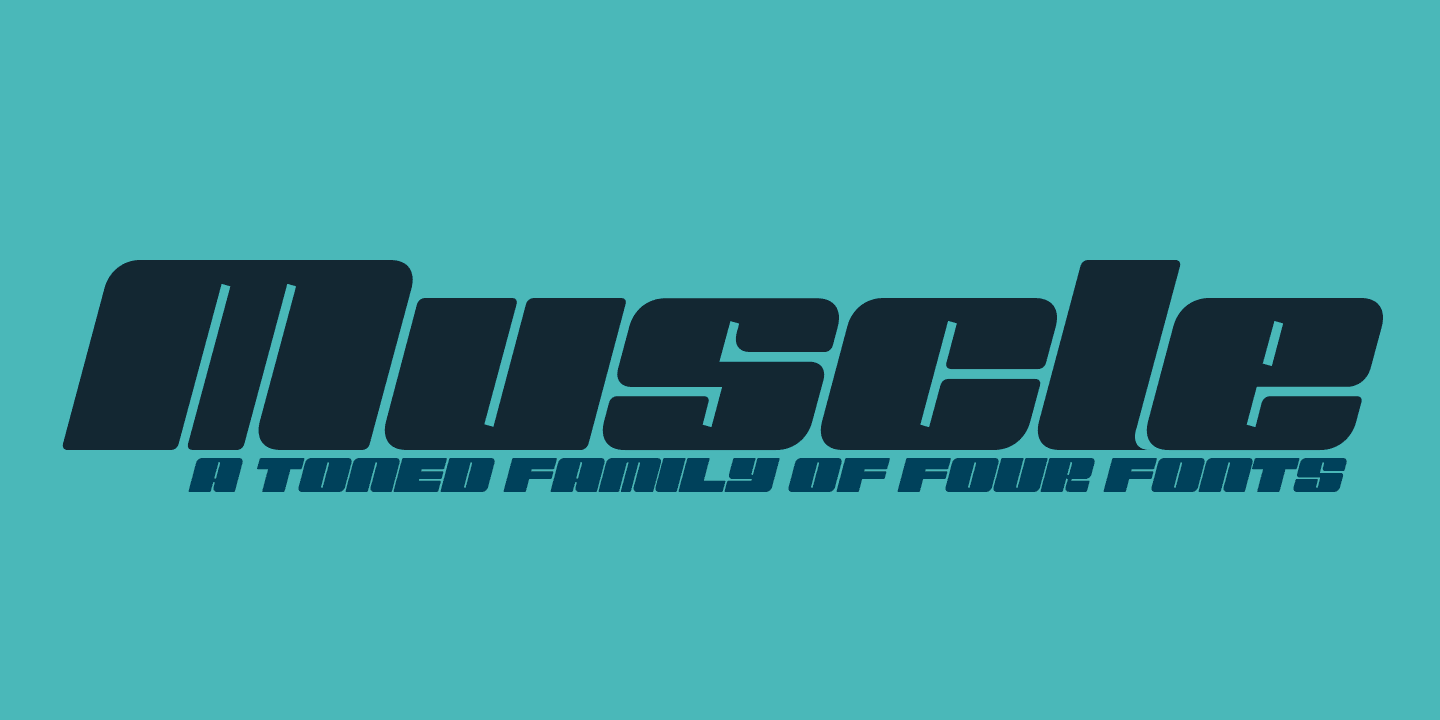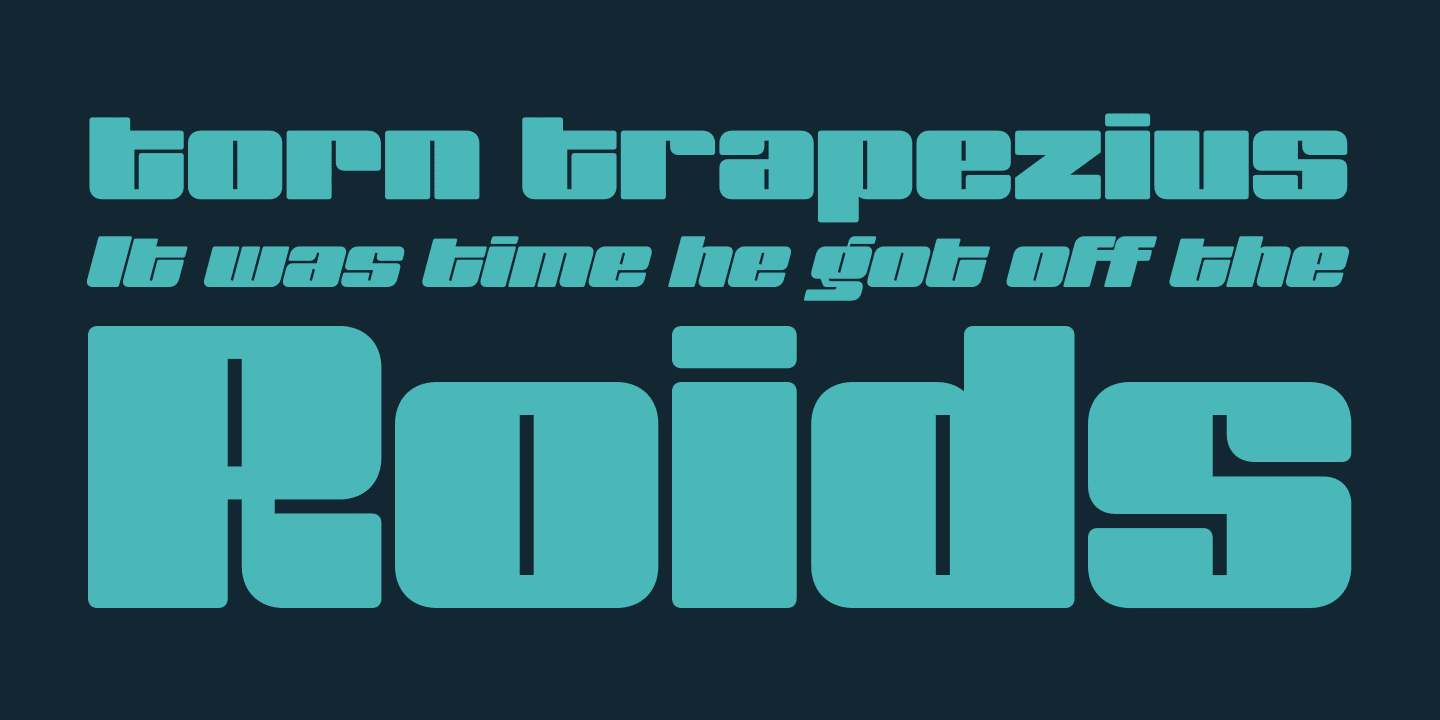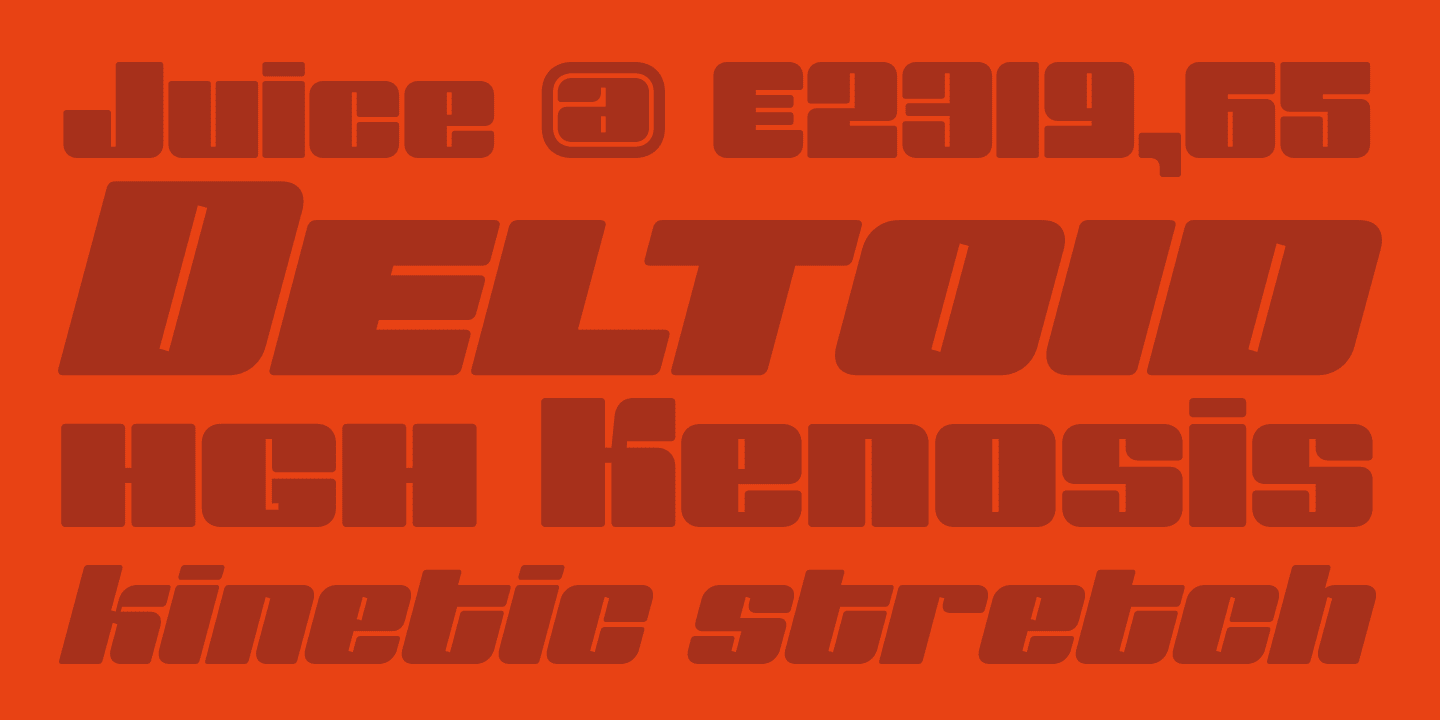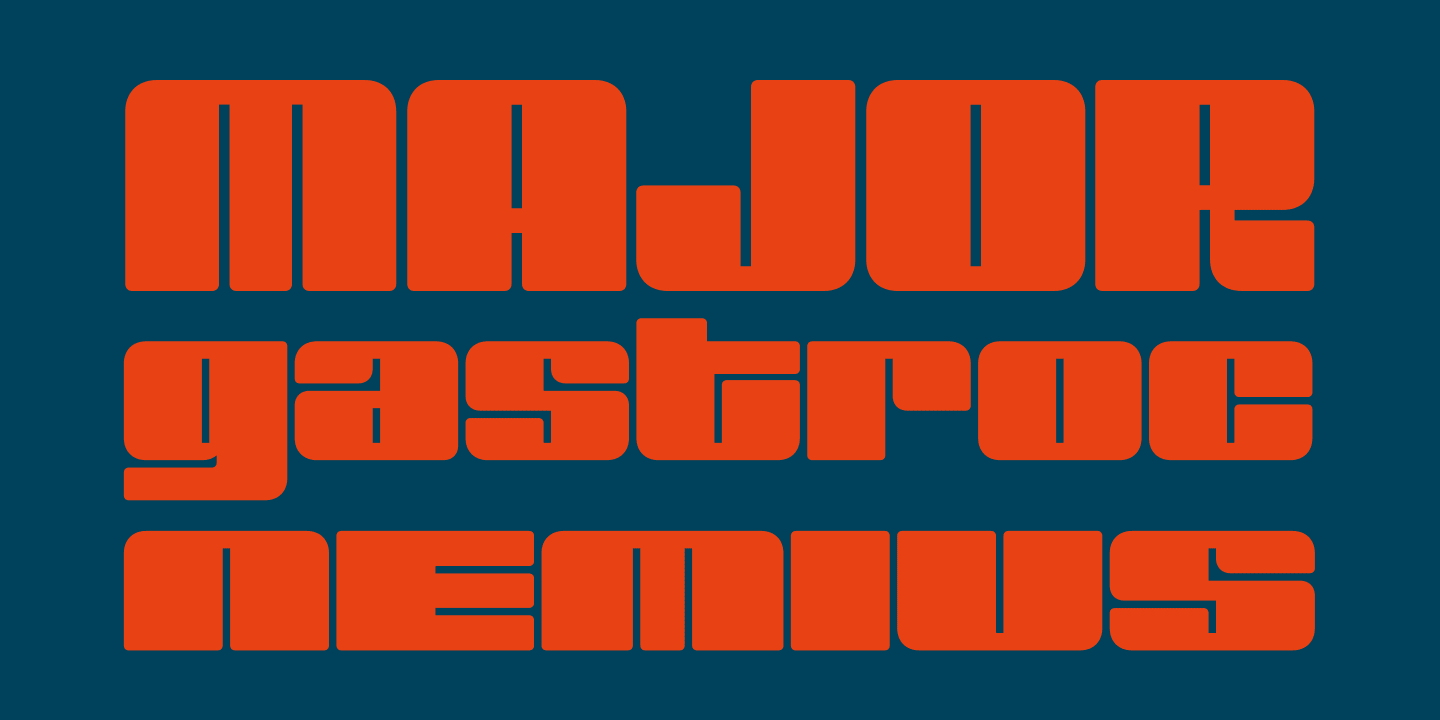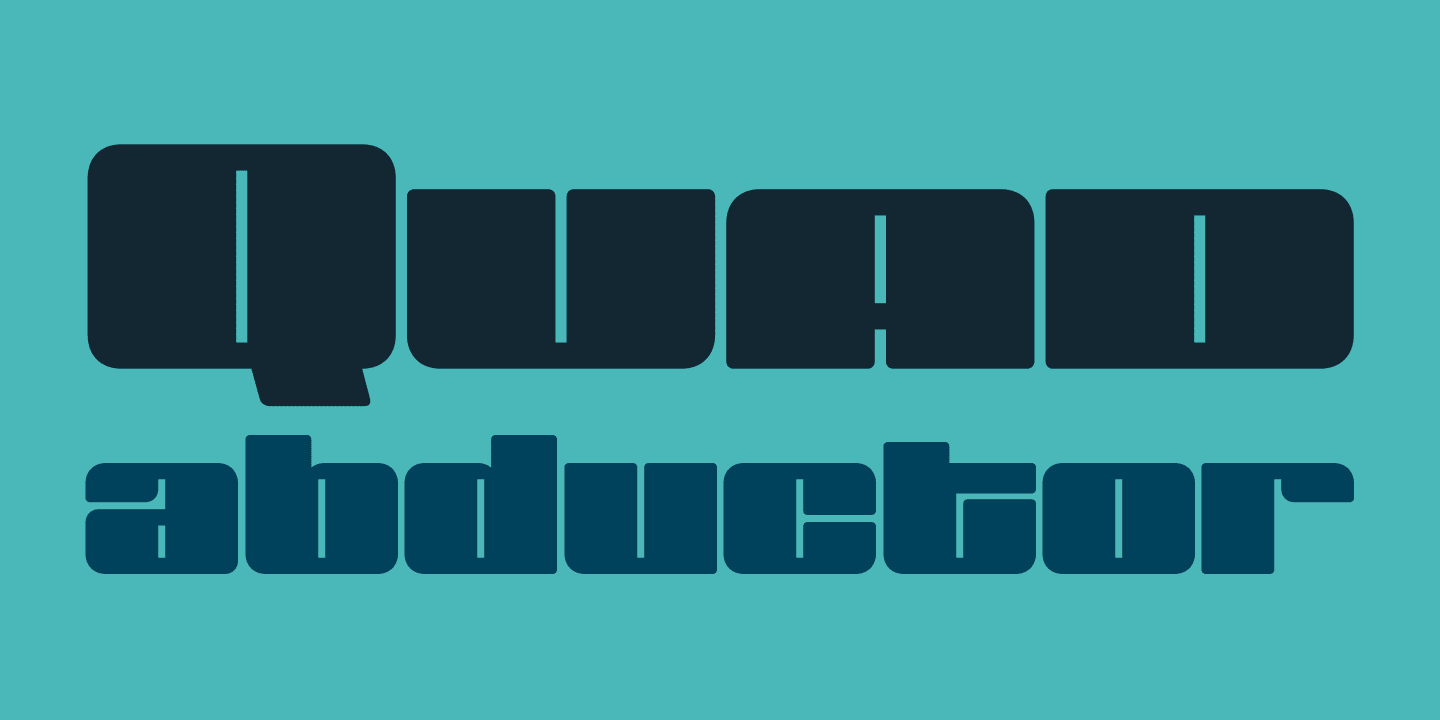
Muscle
WideWide ItalicNarrowNarrow Italic
Muscle came from the original sketches for Sneakers. At the time my concentration with Sneakers was to create a curvier, chunkier display. I left Muscle behind, thinking it was too masculine.
Rather than discard those original sketches, I decided to make it even heavier, reduced the total number of weights, create a function small cap system that when integrated with the lowercase makes a great biform component for short display settings.